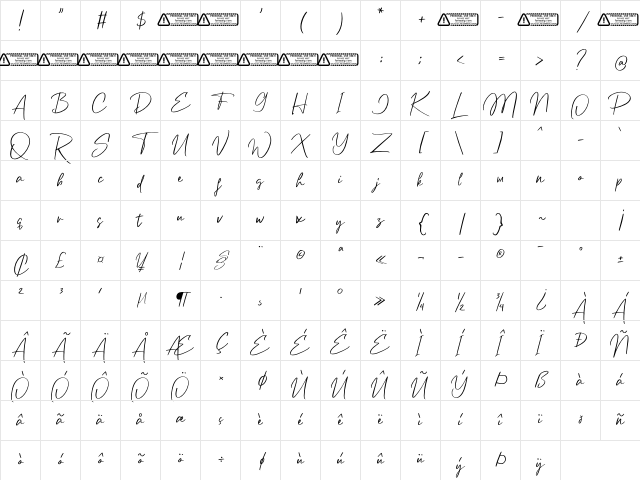
Complete Enterlight PERSONAL USE ONLY! Regular glyph index. Displaying only characters natively supported by Enterlight PERSONAL USE ONLY! Regular font.
Enterlight PERSONAL USE ONLY! is a composed and adaptable typeface that performs quietly and consistently across a wide range of design contexts. Its slender proportions lend an understated elegance to any composition.